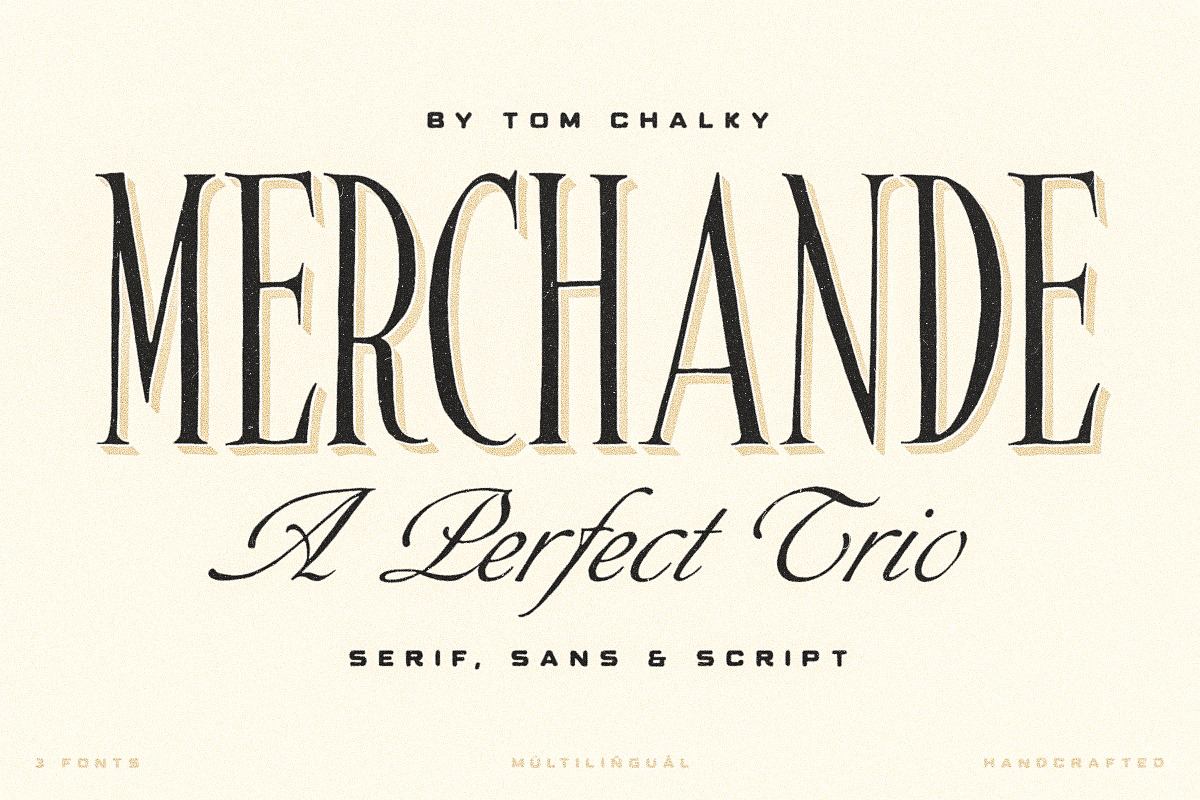
Merchande - Vintage Font Trio Free Download is a stylish and versatile collection of three vintage-inspired fonts designed to bring a nostalgic and timeless feel to your designs. This trio includes a script font, a bold display font, and a clean sans-serif, offering a range of creative possibilities for logos, branding, posters, invitations, and social media content. Whether you're working on a retro-themed project, a creative event, or a vintage brand, Merchande - Vintage Font Trio Free Download provides the perfect combination of styles for every need. Experiment with these fonts in personal projects before purchasing a commercial license and add a unique, vintage flair to your designs with this beautifully crafted font trio.